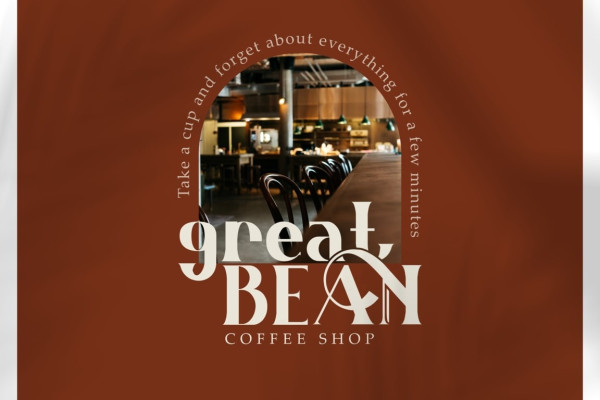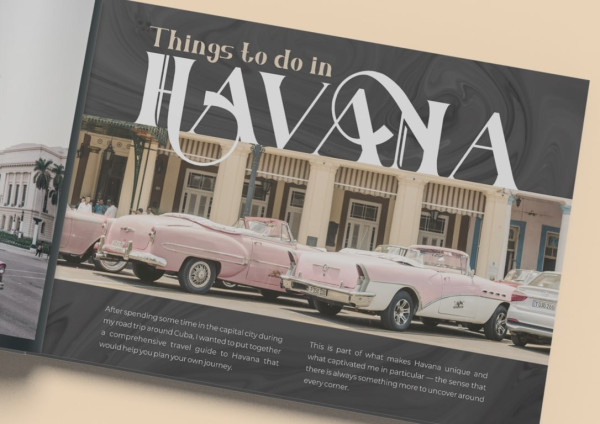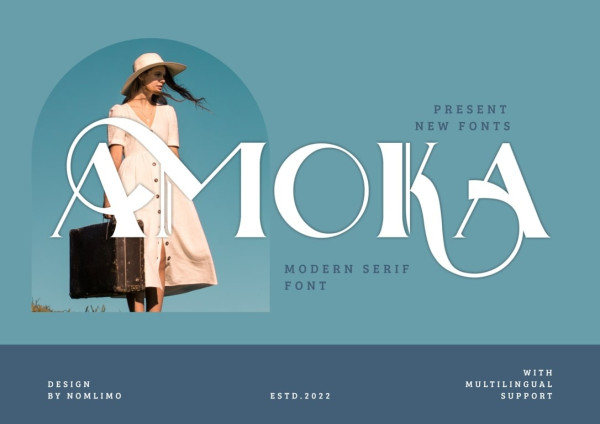
Amoka Font
Amoka Font is an exquisite serif display font that exudes beauty. It is perfectly suited for a variety of applications, including invitation cards, decorative elements, clothing products, greeting cards, and more. This font offers a complete set of uppercase and lowercase letters, numerals, punctuation marks, and supports multiple languages. Additionally, it features several ligatures and stylistic alternatives, allowing for even more creative possibilities in your designs. Embrace Amoka and add an elegant touch to your projects.